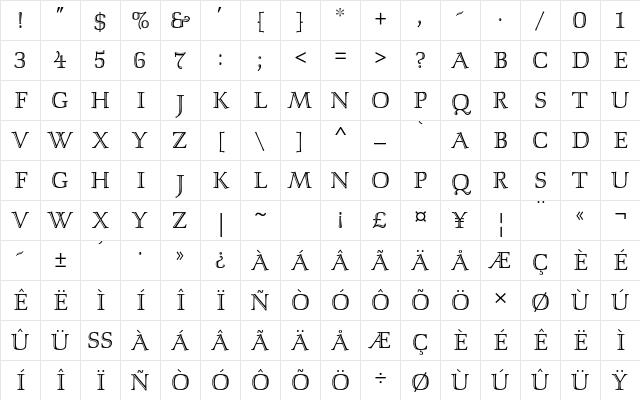
Isis Std Regular
Designer: Michael Gills
Design Context for Isis Std
Isis Std is a composed and adaptable typeface that performs quietly and consistently across a wide range of design contexts.